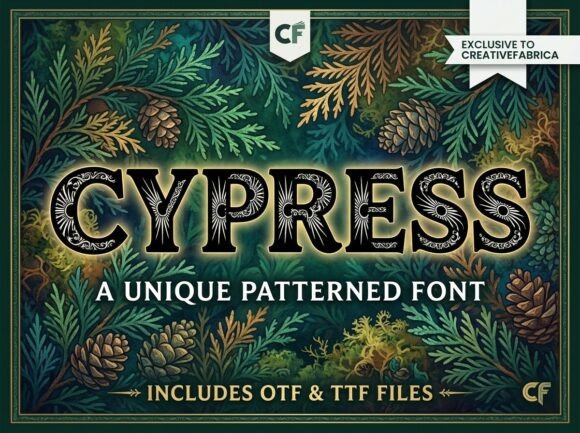
Cypress Font: A Premium Vintage Decorative Font for Elite Layouts
Step into an era of majestic craftsmanship, Victorian elegance, and theatrical showmanship with Cypress, a premium vintage decorative font built for elite layouts. This stunning typeface is designed to evoke the grandeur of 19th-century letterpress blocks and vintage currency engraving, making it perfect for designers and crafters looking to add a touch of luxury and prestige to their projects.
A Font Inspired by History
Cypress draws heavy structural inspiration from the ornate letterpress blocks and currency engravings of the 19th century. The result is a heavy-weight capital typeface that commands the page with historical authority. The core design signature features robust, slab-serif block shapes hollowed out to host a stunning interior matrix of intricate filigree scrolls, geometric sunburst flourishes, and radiating star-burst accents.
Aesthetic and Design Features
The Cypress font is characterized by its robust and luxurious design. The slab-serif block shapes provide a solid foundation, while the intricate filigree scrolls, geometric sunburst flourishes, and radiating star-burst accents add a level of sophistication and elegance. The font’s design is further enhanced when set against deep emerald tones, gold-leaf accents, or textured, aged parchment backgrounds, which radiate unmistakable luxury and prestige.
Perfect for Luxury and Vintage-Inspired Projects
Cypress operates as an unmatched centerpiece for a variety of projects, including vintage spirit and luxury liquor labels, dark academia book titles, historical museum exhibition graphics, boutique barber shop branding, and cinematic period-piece posters. Its unique blend of Victorian elegance and theatrical showmanship makes it an ideal choice for designers and crafters looking to create eye-catching and memorable designs.
Design and Craft Applications
Cypress is a versatile font that can be used in a variety of design and craft applications, including:
• Vintage spirit and luxury liquor labels: Add a touch of sophistication and elegance to your labels with Cypress’s luxurious design.
• Dark academia book titles: Create eye-catching and memorable book titles with Cypress’s bold and elegant design.
• Historical museum exhibition graphics: Bring history to life with Cypress’s vintage-inspired design, perfect for museum exhibition graphics.
• Boutique barber shop branding: Add a touch of luxury and sophistication to your barber shop branding with Cypress’s unique design.
• Cinematic period-piece posters: Create stunning and memorable posters with Cypress’s theatrical and elegant design.
Why Choose Cypress?
There are many reasons why designers and crafters should choose Cypress for their projects:
• Unique and luxurious design: Cypress’s unique blend of Victorian elegance and theatrical showmanship makes it stand out from other fonts.
• High-quality and versatile: Cypress is a high-quality font that can be used in a variety of design and craft applications.
• Ease of use: Cypress is easy to use and can be easily integrated into your design workflow.
• Unmatched prestige: Cypress radiates unmistakable luxury and prestige, making it perfect for designers and crafters looking to create high-end designs.
In conclusion, Cypress is a premium vintage decorative font that is perfect for designers and crafters looking to add a touch of luxury and prestige to their projects. Its unique blend of Victorian elegance and theatrical showmanship, combined with its robust and luxurious design, make it an ideal choice for a variety of design and craft applications. Whether you’re creating vintage spirit labels, dark academia book titles, or cinematic period-piece posters, Cypress is sure to make your designs stand out.